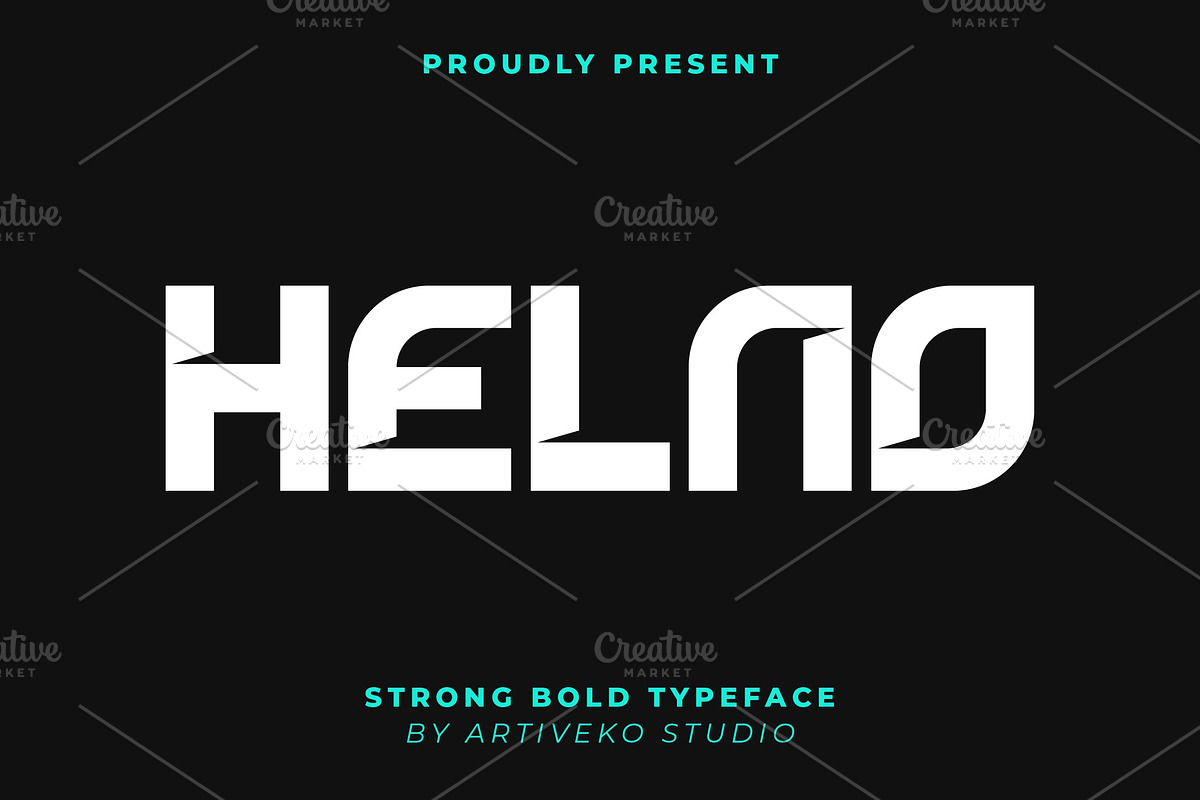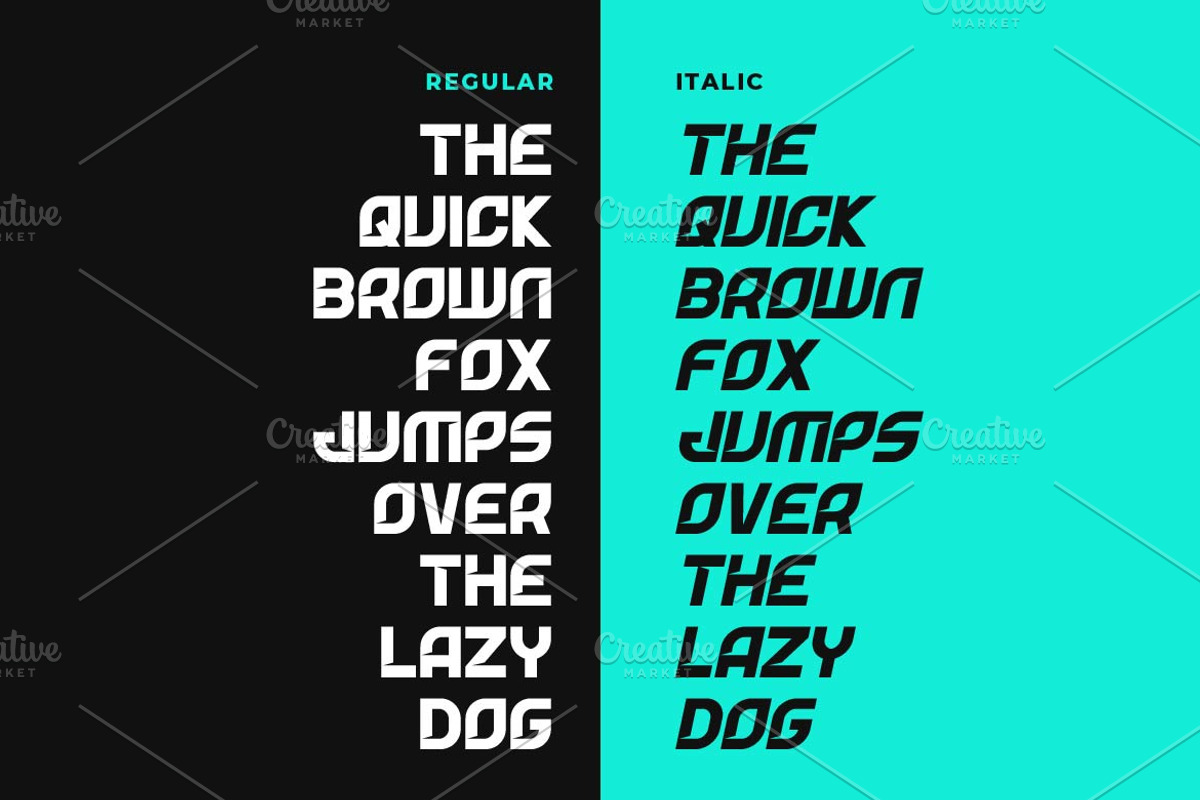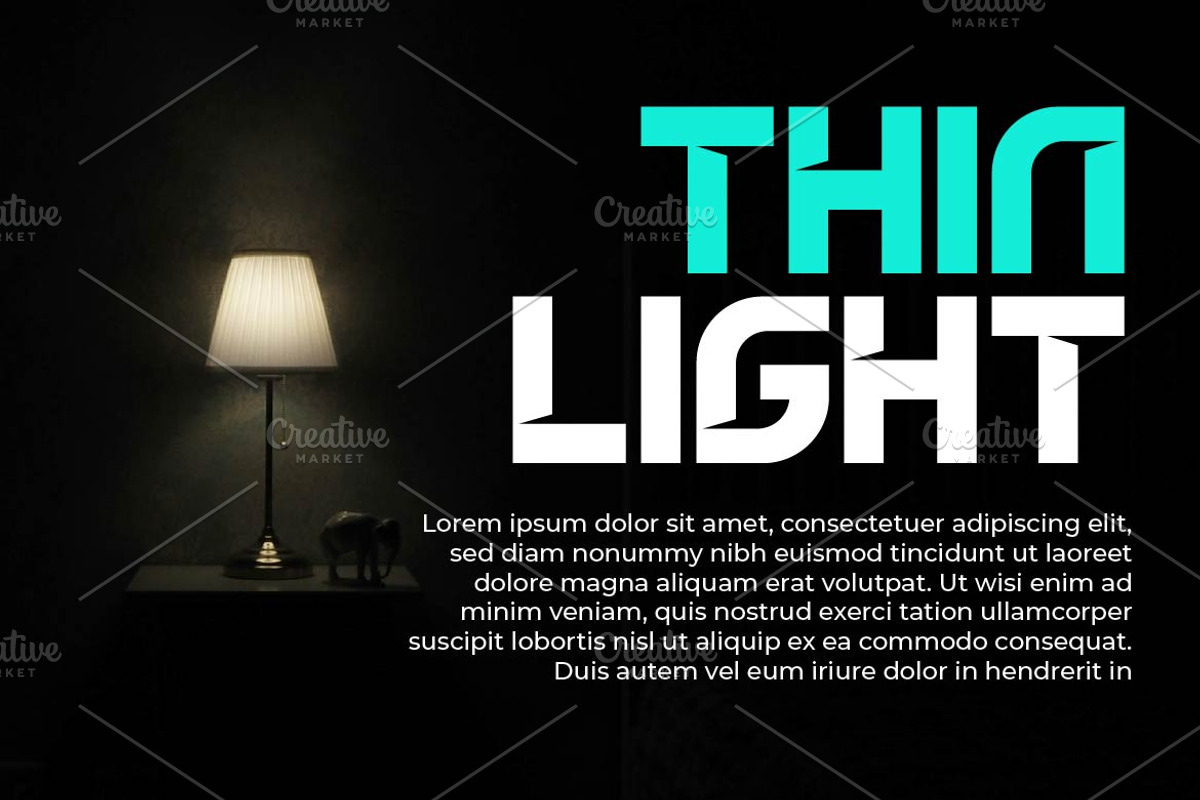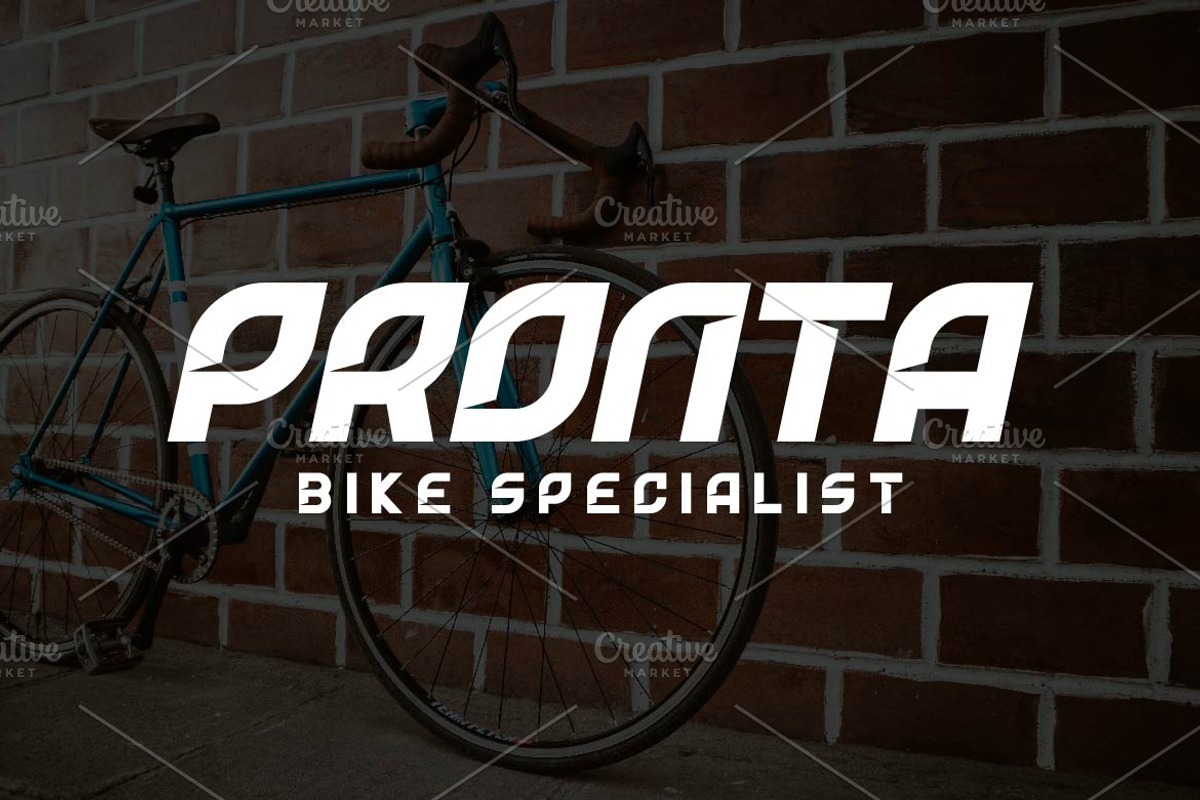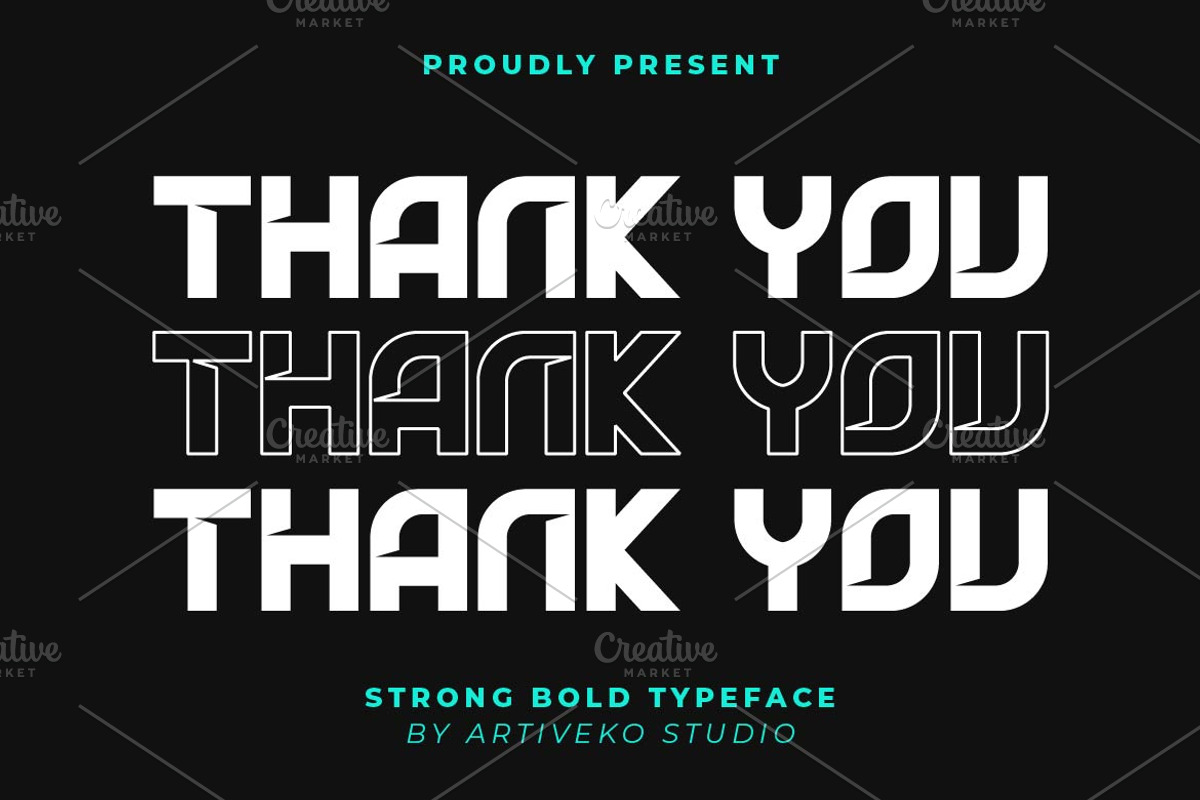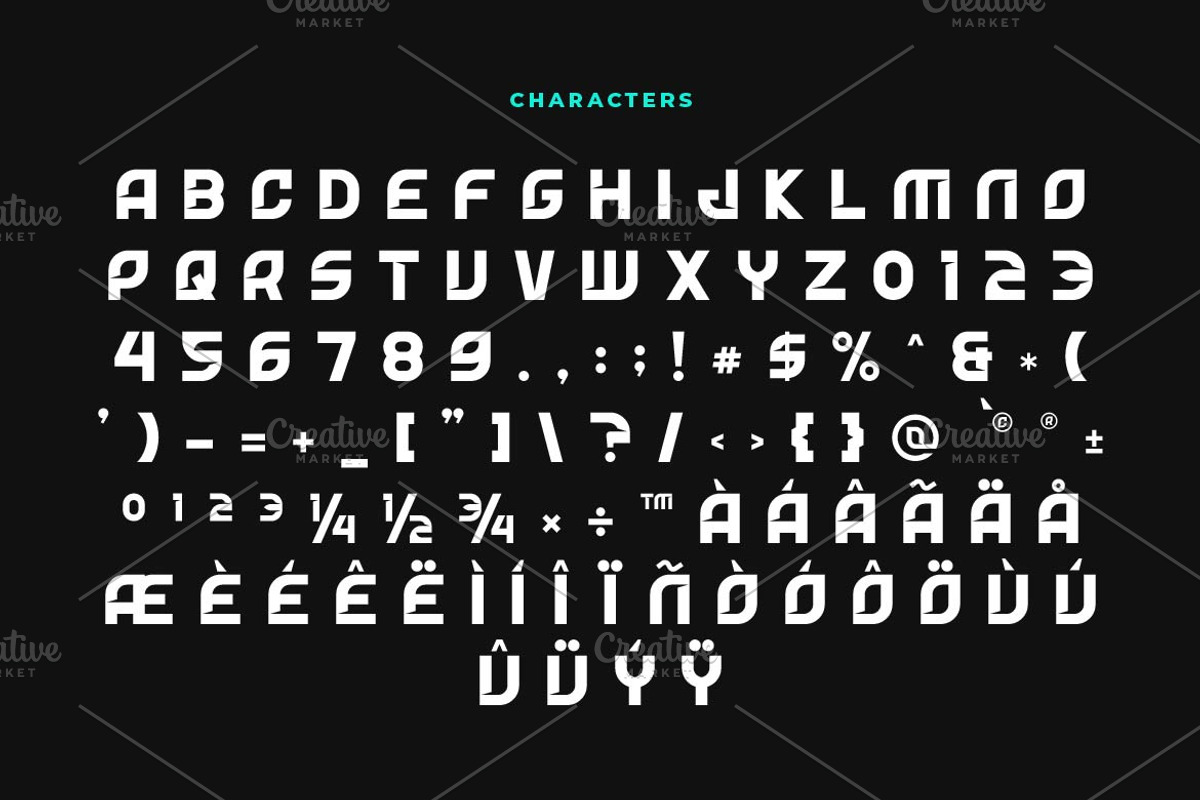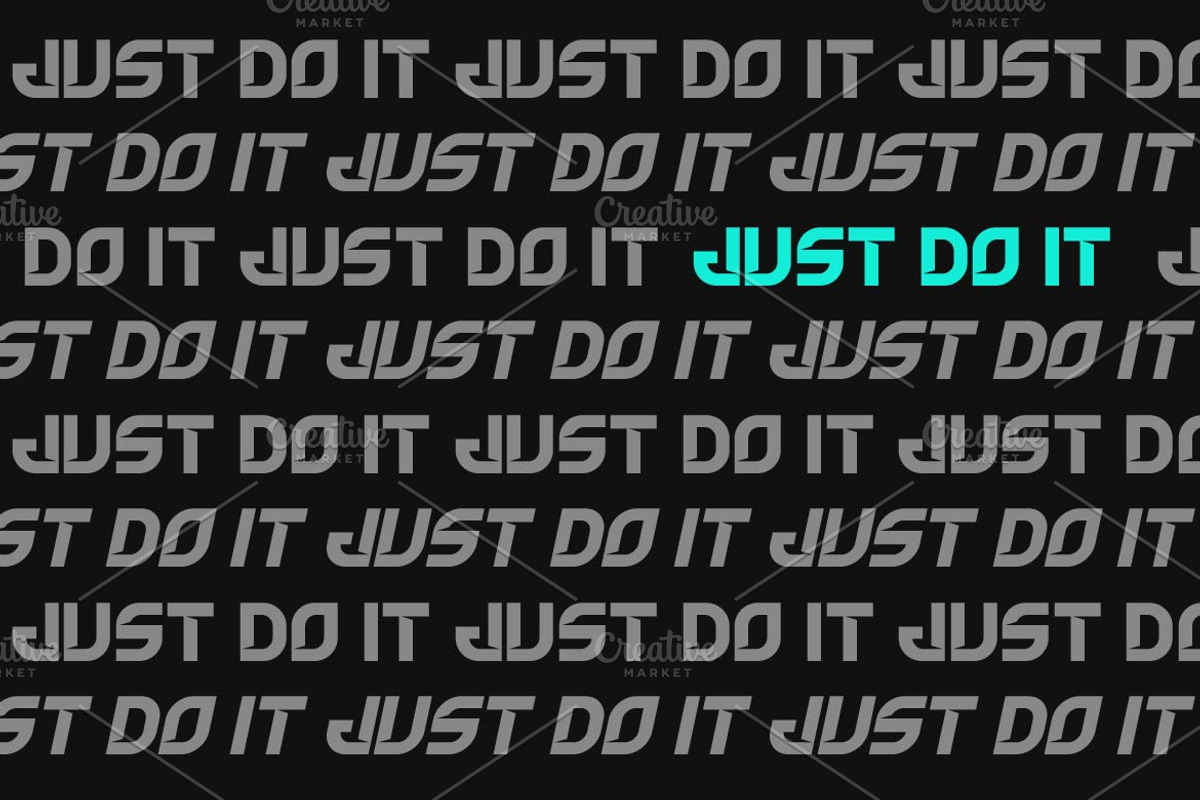
Helno Strong Bold Font
Helno is a strong bold font designed with powerful, modern letterforms that exude confidence and impact. Perfect for branding, sports, posters, and headline designs, Helno delivers a commanding and professional aesthetic. Featuring multilingual support, ligatures, and alternates, this versatile typeface ensures maximum readability and strength, making it an ideal choice for projects that demand boldness and presence.